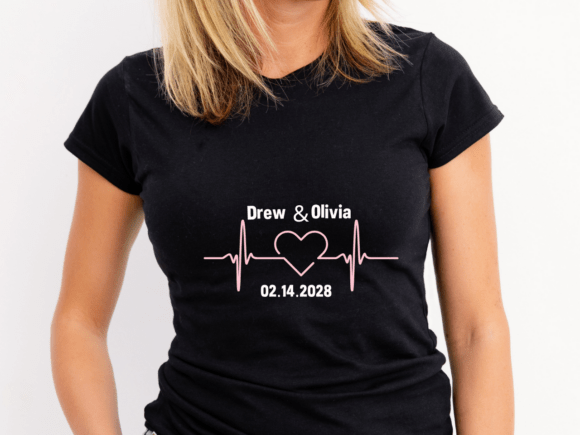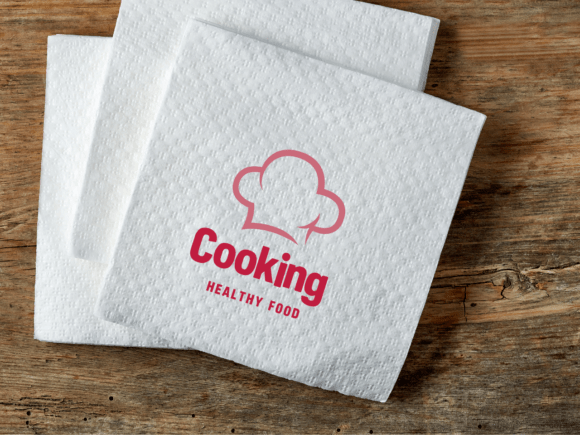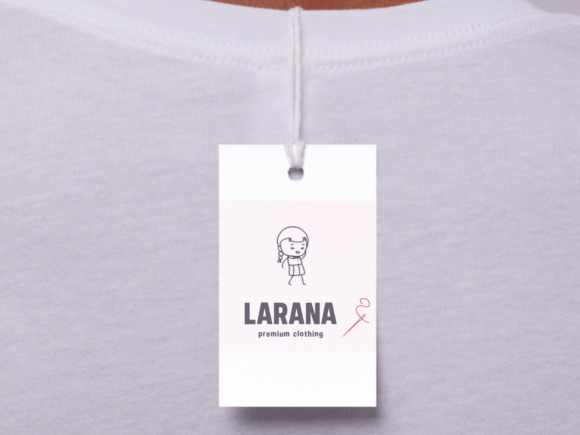
Introduction to Nixonxo Font
As a designer, have you ever stumbled upon that perfect font that instantly elevates your creative project? For many, it’s a moment of pure bliss – a symphony of typography that brings their vision to life. And for those who’ve experienced this, the search is always on for that next great font discovery. Enter the Nixonxo Font, a unique sans serif that’s about to become your new design BFF.
This quirky font is a game-changer for designers, offering a refreshing alternative to the usual suspects. With its versatility and high-quality aesthetic, Nixonxo Font is perfect for a wide range of design projects – from branding to editorial content. Whether you’re working on a free download or a paid project, this font is sure to impress with its transparent background and sleek design.
- High-quality, professional font suitable for creative projects and designs.
- Features a unique, stylish design that can add a touch of sophistication to any creative project.
Honest Review: Nixonxo Font
I recently came across the Nixonxo Font, and I was excited to give it a try in my latest design project. The font’s modern and sleek design made it a great addition to my creative project.
- ✨ High-quality design: The font’s clean lines and crisp typography make it perfect for any high-end design project.
- ⚠️ Limited font weights: The font only comes in a few weights, which may limit its versatility in certain design situations.
- ⚠️ Not ideal for body text: While the font looks great for headings and titles, it may not be the best choice for body text due to its lack of legibility at smaller sizes.
Overall, I’m impressed with the Nixonxo Font. It’s a great addition to any designer’s resource library, especially for free download. With its high-quality design and transparent background, it’s perfect for any creative project that requires a touch of sophistication.
The Nixonxo Font is ideal for various creative projects, including:
- Branding and logos
- Print materials (business cards, brochures, etc.)